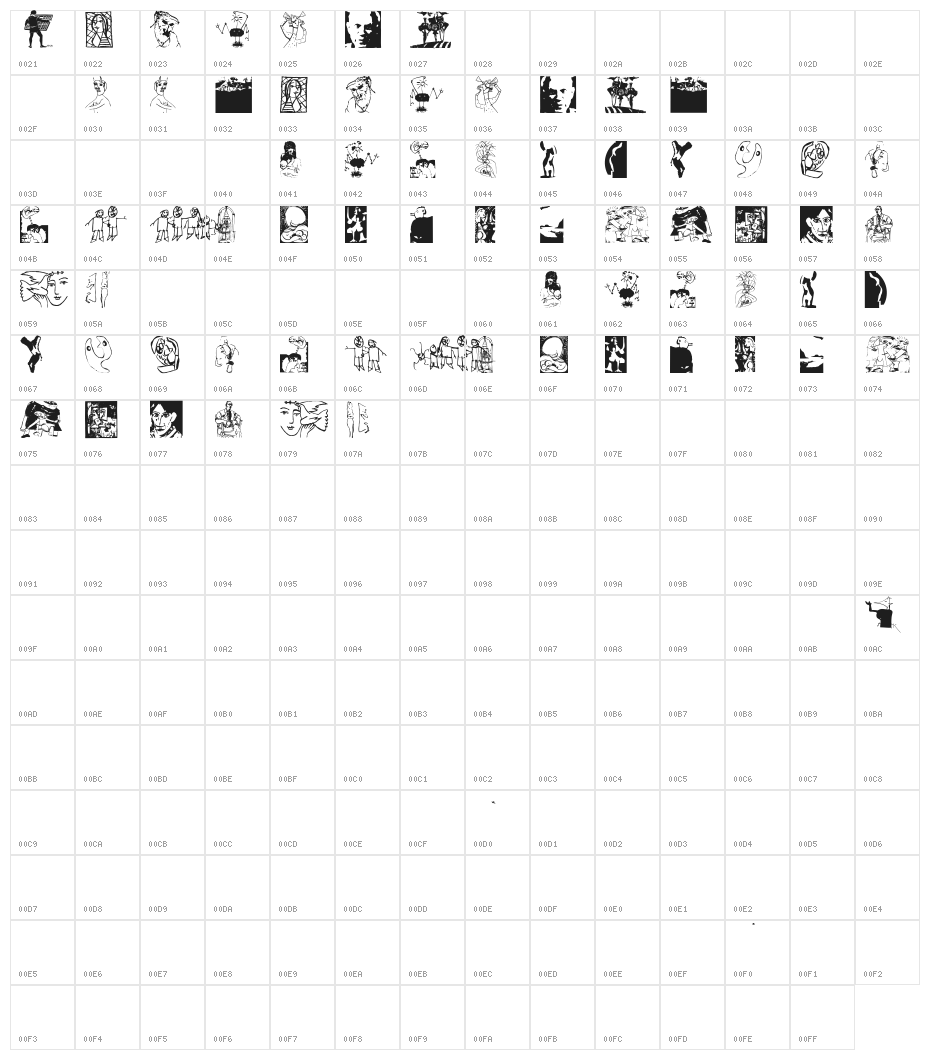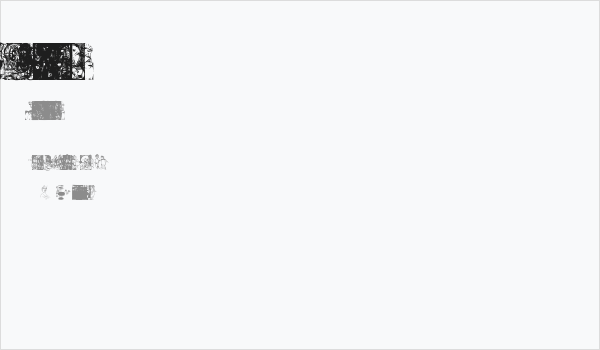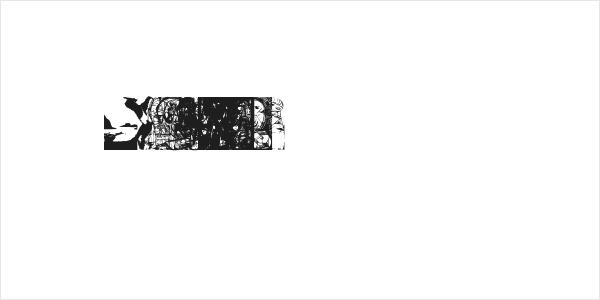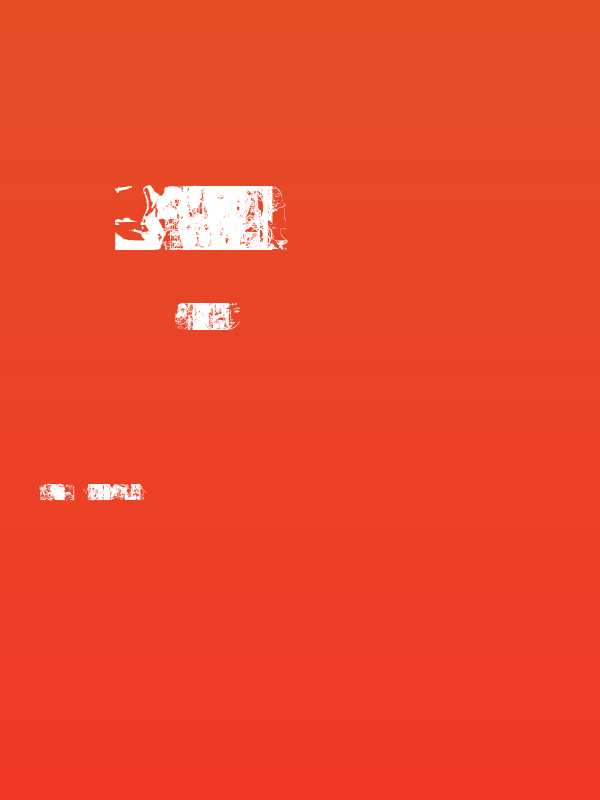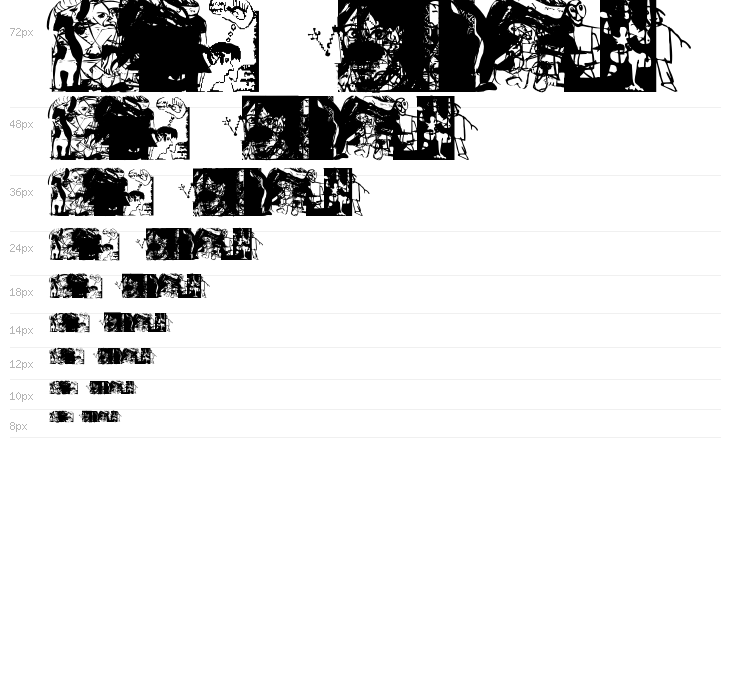
VectorPaintings Font
VectorPaintings Description
Highly abstract, chaotic, and expressive letterforms composed of dense, overlapping vector illustrations and painterly strokes, making each character appear as a miniature piece of abstract art rather than a traditional font.
| Overall Style | Abstract, Artistic, Experimental, Decorative |
| Use Case | Headlines, Posters, Artistic projects, Logos (for art-related brands) |
| Proposed Projects | Art posters, album covers, avant-garde branding, gallery invitations, experimental zines. |